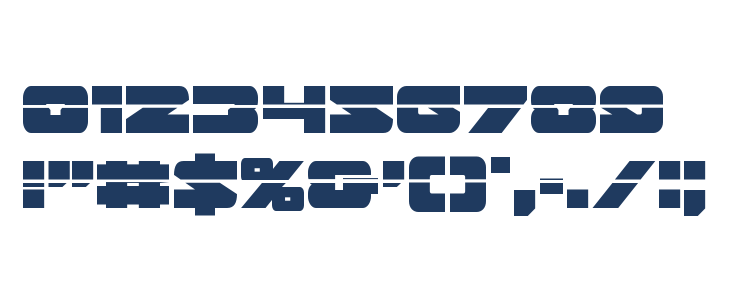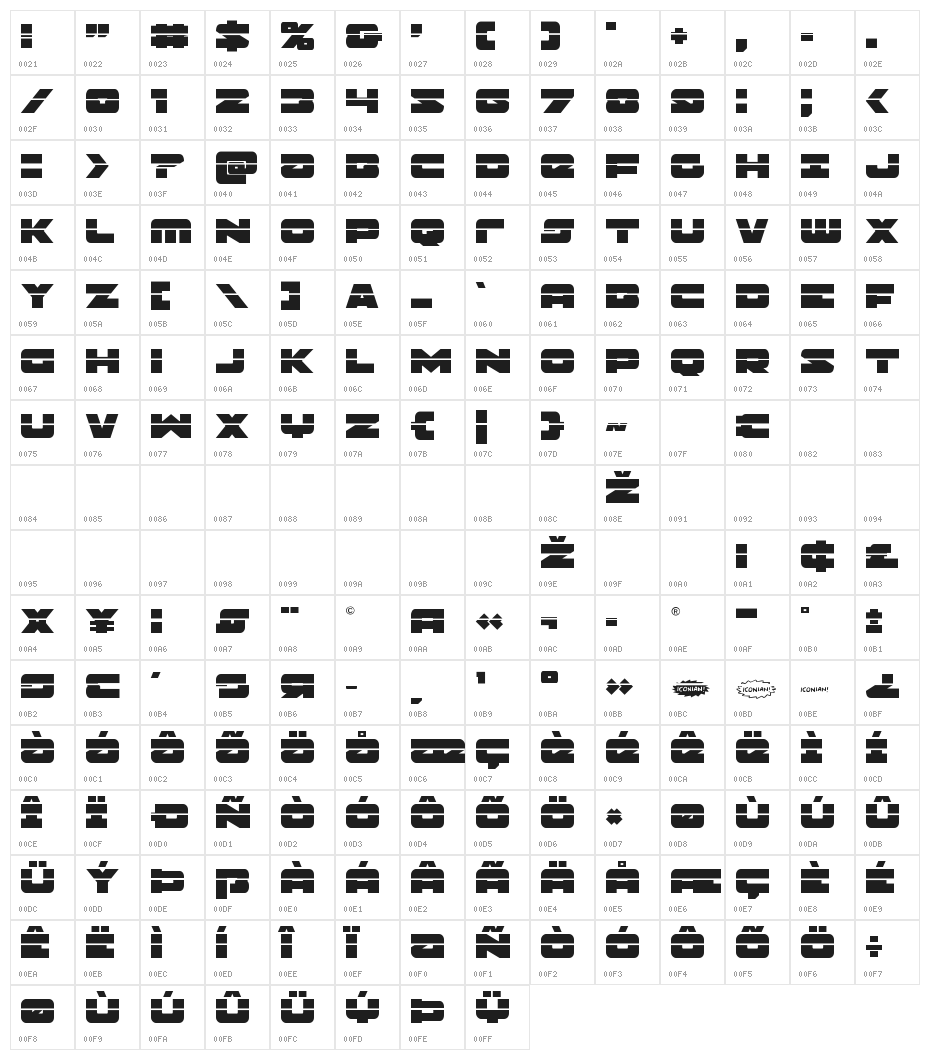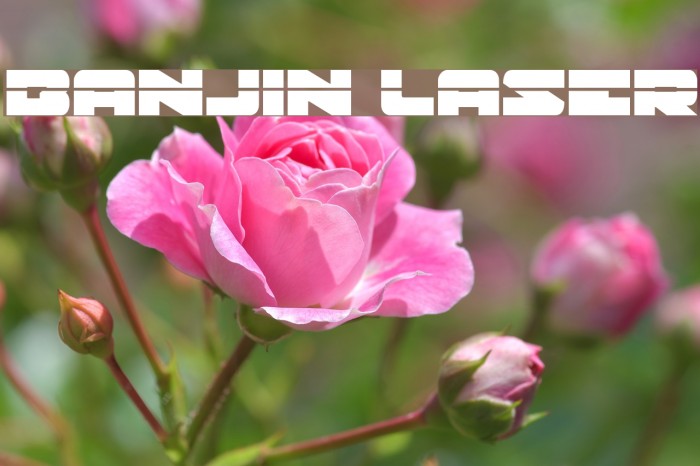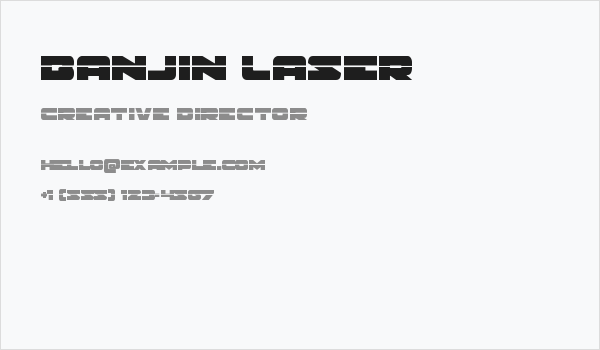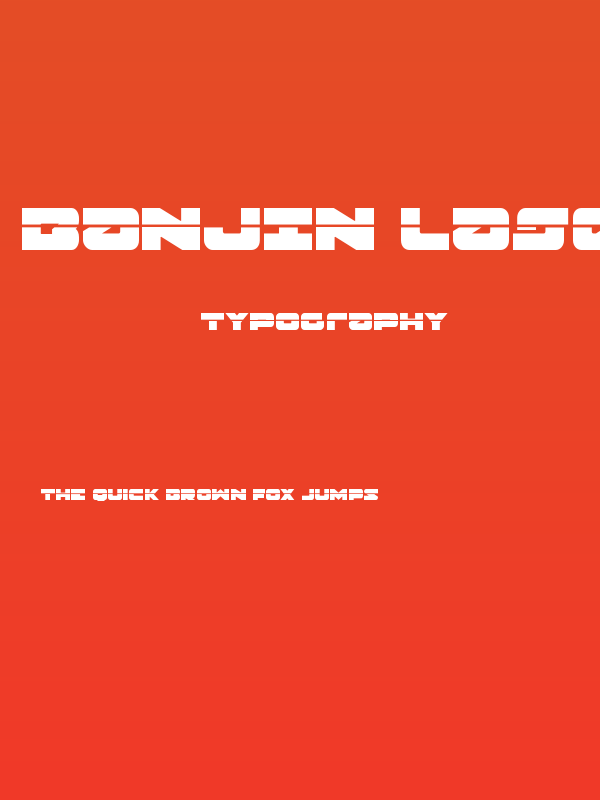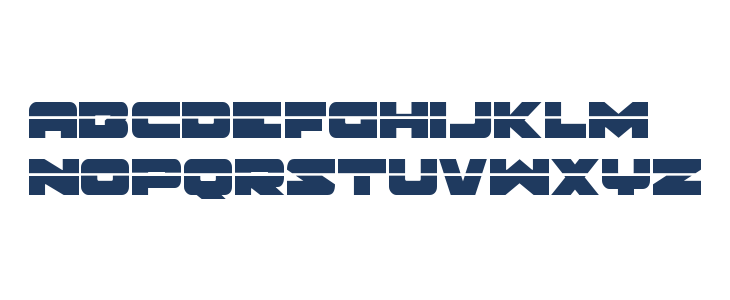
Banjin Laser Font
Banjin Laser Description
This font features a bold, futuristic design with a strong geometric influence. The characters are constructed with thick, block-like shapes that create a sense of solidity and strength. The angular cuts and sharp edges give it a modern, tech-inspired appearance, making it ideal for projects that require a contemporary and edgy look. The uniformity in stroke width across all characters contributes to a cohesive and structured feel. Its unique style is particularly suited for digital and technology-themed applications, where a bold statement is desired.
Proposed ProjectsIdeal for technology branding, video game titles, sci-fi movie posters, and digital media.